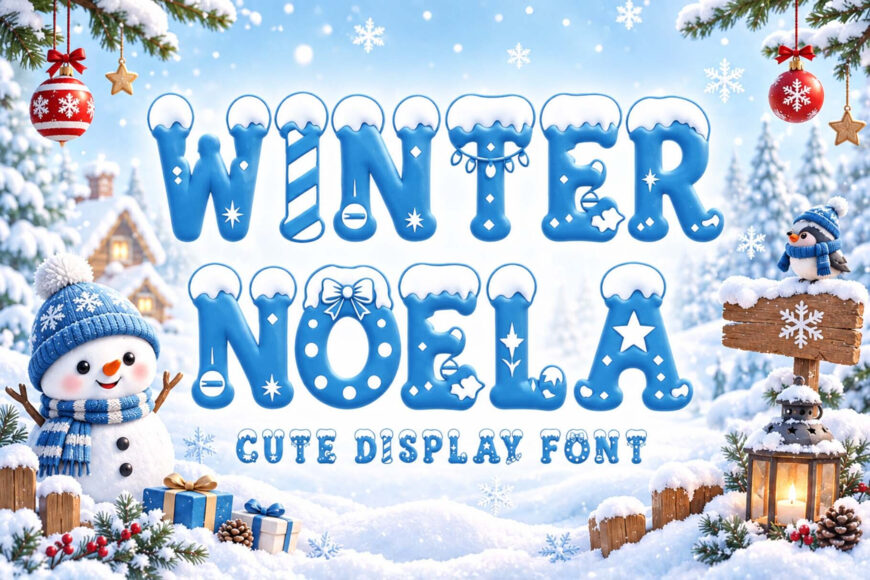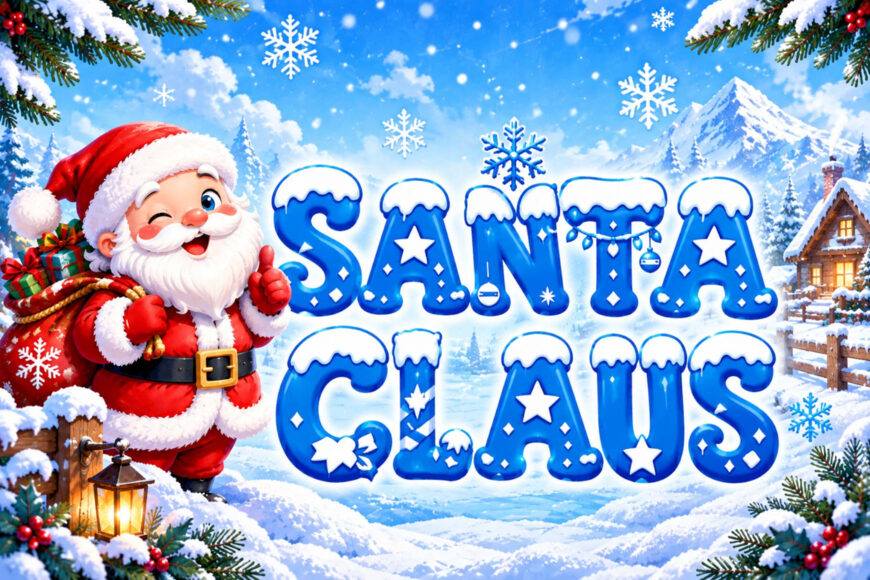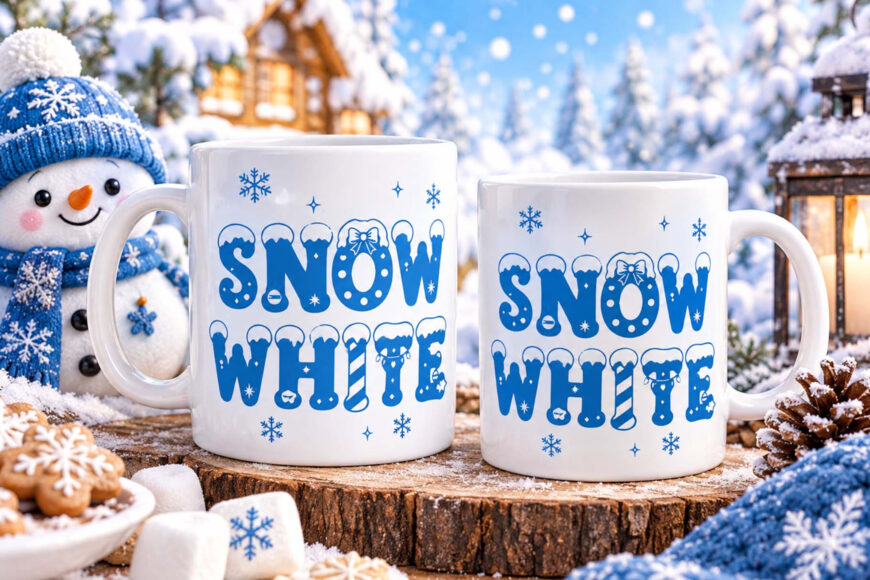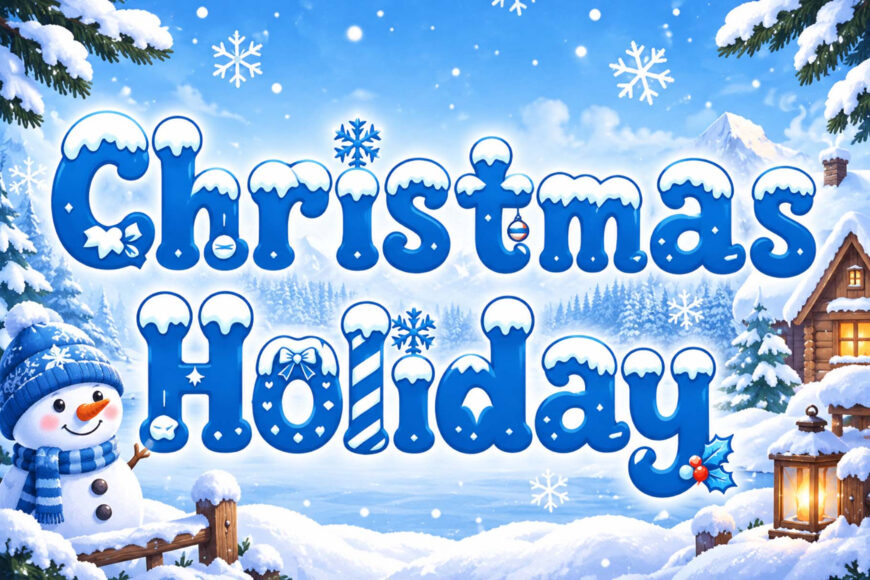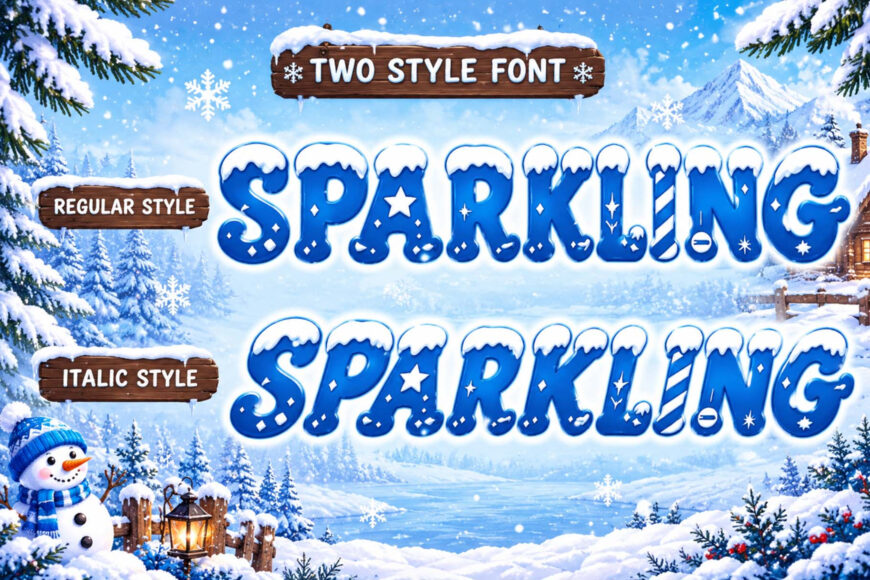
Winter Noela is a cute and playful Christmas display font inspired by the magic of winter. Featuring chunky, rounded letterforms covered with snowy details, snowflakes, and festive decorations, this font brings a cheerful and cozy holiday feeling to every design.